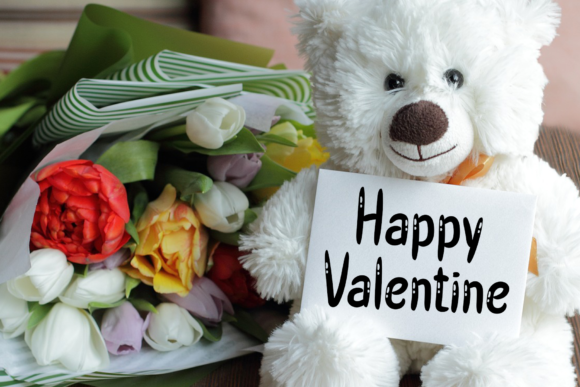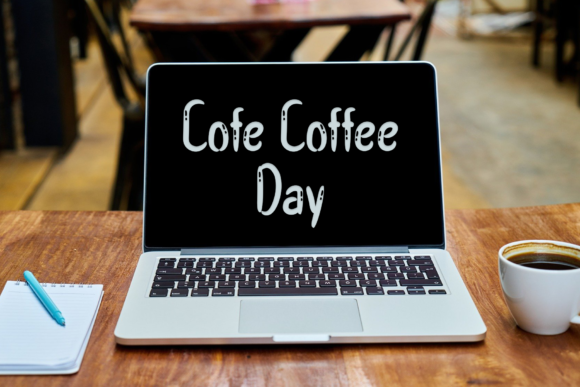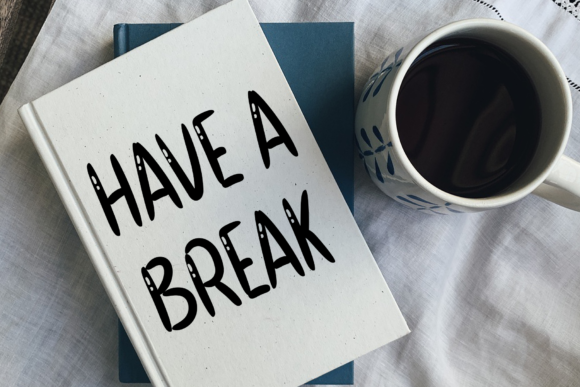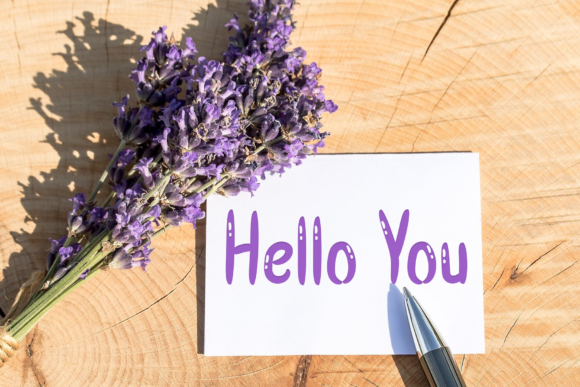
Americano Font: Elevate Your Designs with a Unique Display Font
Are you tired of using the same old fonts in your designs? Look no further than the Americano font, a distinctive display font that can add a touch of sophistication and realism to your ideas. With its unique style, Americano font is perfect for designers and crafters who want to create spectacular designs that stand out from the crowd.
What is Americano Font?
Americano font is a display font that is designed to make a statement. Its unique style is inspired by classic American typography, with a modern twist that makes it perfect for contemporary designs. The font features bold lines, elegant curves, and a distinctive flair that sets it apart from other fonts.
Key Features of Americano Font
- Unique Style: Americano font has a one-of-a-kind style that is sure to grab attention.
- Display Font: Designed specifically for display purposes, Americano font is perfect for headlines, titles, and other prominent text elements.
- Highly Versatile: Americano font can be used in a wide range of designs, from posters and flyers to logos and branding materials.
- Easily Readable: Despite its bold style, Americano font is highly readable, making it perfect for designs where clarity is key.
How to Use Americano Font in Your Designs
Americano font is incredibly easy to use, even for designers who are new to working with display fonts. Here are a few tips to get you started:
- Pair it with a Simple Font: For maximum impact, pair Americano font with a simple, easy-to-read font for body text.
- Experiment with Colors: Americano font looks great in a wide range of colors, so don’t be afraid to experiment and find the perfect hue for your design.
- Play with Size: Americano font can be used in a variety of sizes, from large display text to smaller headlines.
Benefits of Using Americano Font
So why should you choose Americano font for your designs? Here are just a few benefits:
- Adds Realism: Americano font has a highly realistic style that can add depth and dimension to your designs.
- Creates Visual Interest: With its unique style and bold lines, Americano font is sure to grab attention and create visual interest.
- Perfect for Branding: Americano font is highly versatile, making it perfect for use in branding materials such as logos, business cards, and letterheads.
Tips for Crafters and Designers
Whether you’re a seasoned designer or a crafter looking to add some extra flair to your projects, Americano font is a great choice. Here are a few tips to keep in mind:
- Use it for Special Projects: Americano font is perfect for special projects such as event invitations, posters, and flyers.
- Experiment with Different Media: Americano font can be used in a wide range of media, from digital designs to print materials.
- Don’t be Afraid to Get Creative: With its unique style, Americano font is the perfect choice for designers and crafters who want to think outside the box.
In conclusion, Americano font is a unique and versatile display font that can add a touch of sophistication and realism to your designs. With its bold lines, elegant curves, and distinctive flair, Americano font is perfect for designers and crafters who want to create spectacular designs that stand out from the crowd. So why not give it a try and see the difference it can make in your designs?